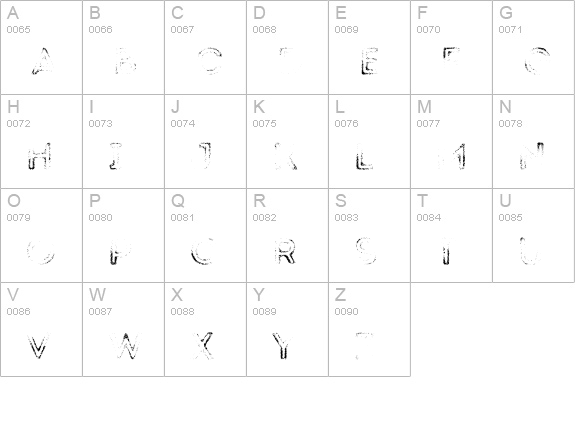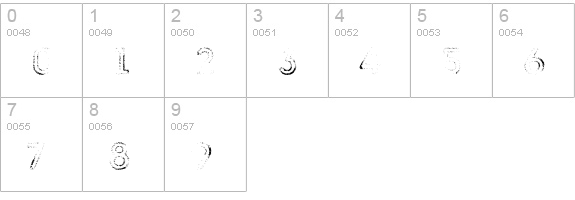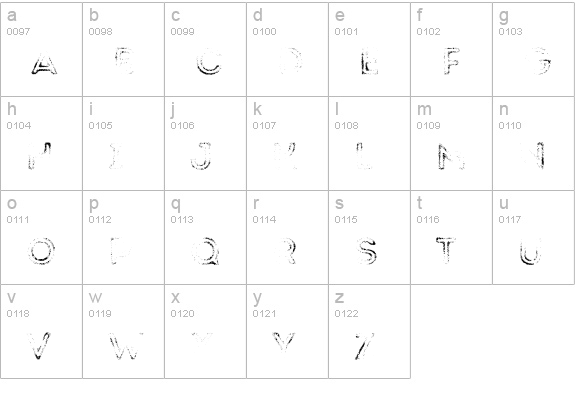
Intro Rust G Fill 2 Font Details
Intro Rust G Fill 2 font is a bold and eye-catching typeface that exudes a sense of strength and modernity. Its unique design features sharp edges and intricate details that make it stand out in any project. This font is perfect for creating impactful headlines, posters, and branding materials. The best part about Intro Rust G Fill 2 font is that it is available for free download at FontsMarket.com. You can easily access this striking typeface and incorporate it into your designs without any cost. Don't miss out on the opportunity to enhance your creative projects with this impressive font that will surely leave a lasting impression.